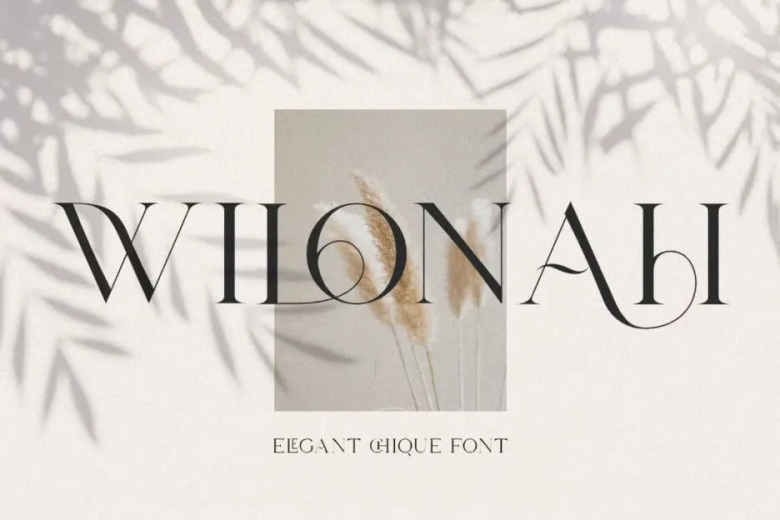
Wilonah Font
Saydachi Script New Font Our newest product is Wilonah Serif New Font! This collection is perfect for personal branding. Our idea with this is to create designs for people. However, but, even so, I would say one works well with many applications.
Our favorite would be based on personal brands, stationary, logos, name tag, handwritten quotes, merchandise, product packaging, social media & greeting cards. photography signature, ads, and anything related to Wilonah Serif New Font.
Wilonah Elegant Serif Font